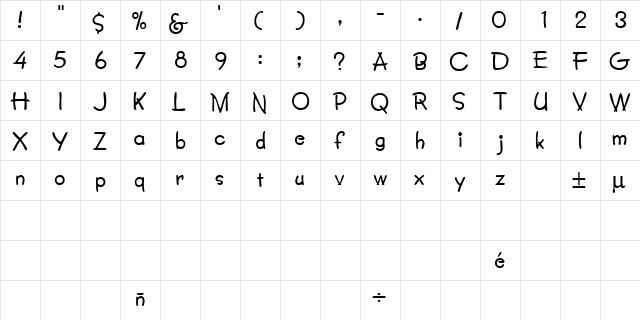
BoyzClubSSK Regular
Design Context for BoyzClubSSK Typeface
BoyzClubSSK offers clean, dependable letterforms without strong stylistic allegiance, making it a practical choice for designers who need flexibility.